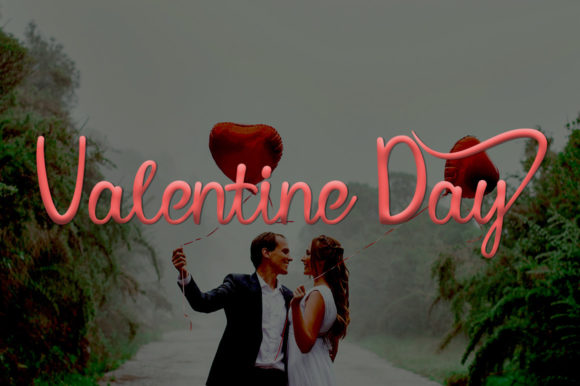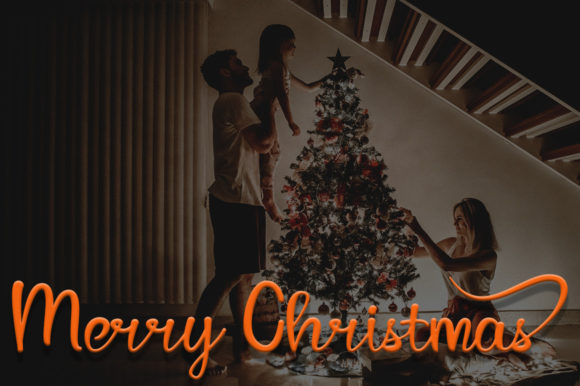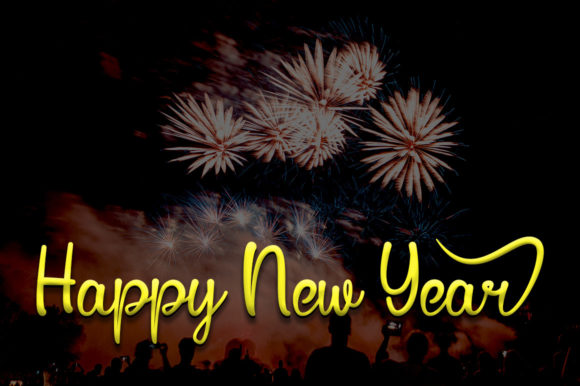
Introducing Deallove Font: The Perfect Handwritten Touch for Your Creative Projects
Are you a designer, crafter, or DIY enthusiast looking for a unique and beautiful font to add a personal touch to your creative projects? Look no further than Deallove Font! This stunning handwritten font is perfect for writing letters, creating greeting cards, and beautifying your holiday designs. With Deallove, you can add a spark of beauty to your projects and make them truly special.
What is Deallove Font?
Deallove Font is a one-of-a-kind handwritten font that is both elegant and playful. Its unique charm makes it perfect for a variety of creative projects, from personal letters and greeting cards to holiday decorations and DIY crafts. Whether you’re a professional designer or a crafty hobbyist, Deallove Font is sure to inspire your creativity and take your projects to the next level.
Features of Deallove Font
So, what makes Deallove Font so special? Here are just a few of its key features:
- Unique Handwritten Style: Deallove Font has a distinctive handwritten style that is both beautiful and expressive. Its flowing lines and curves give it a personal and emotional feel that’s perfect for adding a touch of warmth to your projects.
- Perfect for Letters and Greeting Cards: Deallove Font is ideal for writing letters, creating greeting cards, and making other personal items. Its elegant and cursive style makes it perfect for expressing your thoughts and feelings in a beautiful and meaningful way.
- Suitable for Holiday Designs: Deallove Font is also perfect for holiday designs, such as Christmas cards, Halloween decorations, and other seasonal projects. Its playful and festive style makes it a great choice for adding a touch of holiday cheer to your creations.
Tips and Inspiration for Using Deallove Font
Here are a few tips and inspiration ideas for using Deallove Font:
- Mix and Match: Don’t be afraid to mix and match Deallove Font with other fonts and design elements to create a unique and eye-catching look.
- Add Some Color: Deallove Font looks great in a variety of colors, so don’t be afraid to experiment with different hues and shades to add some personality to your project.
- Get Creative with Holiday Designs: Deallove Font is perfect for holiday designs, so try using it to create some unique and festive decorations, such as Christmas cards, Halloween signs, or Easter egg designs.
| Font Name | Deallove Font |
| Author | ARTD STUDIO |
In conclusion, Deallove Font is a beautiful and unique handwritten font that’s perfect for adding a personal touch to your creative projects. With its elegant and playful style, it’s ideal for writing letters, creating greeting cards, and beautifying your holiday designs. Whether you’re a designer, crafter, or DIY enthusiast, Deallove Font is sure to inspire your creativity and take your projects to the next level. So why wait? Download Deallove Font today and start adding a spark of beauty to your creative projects!